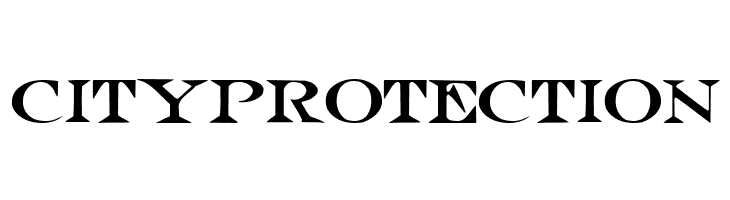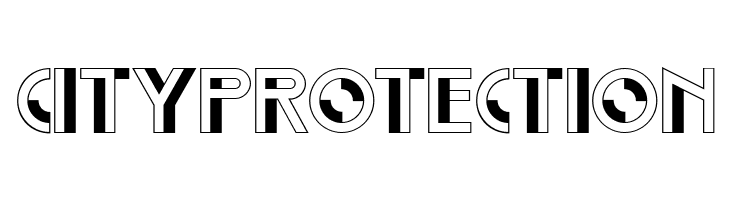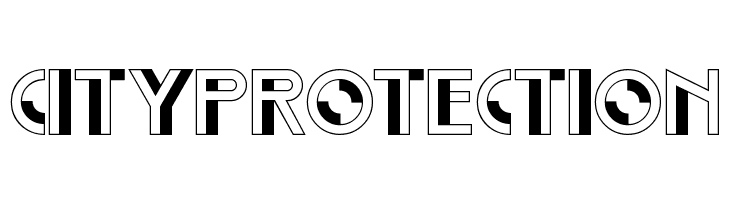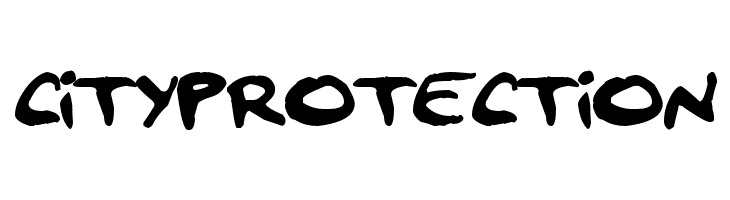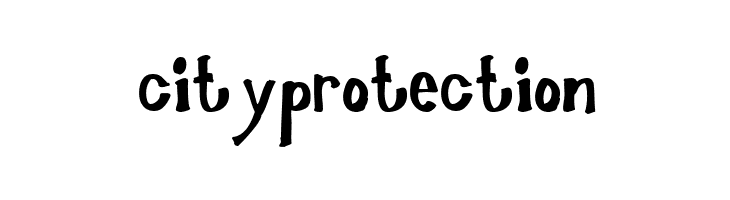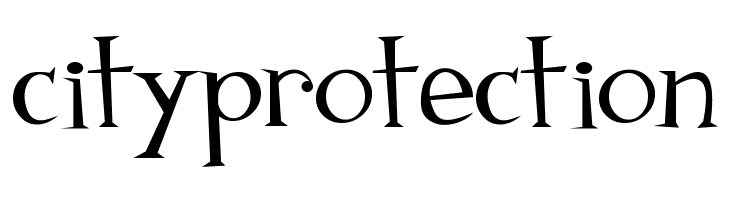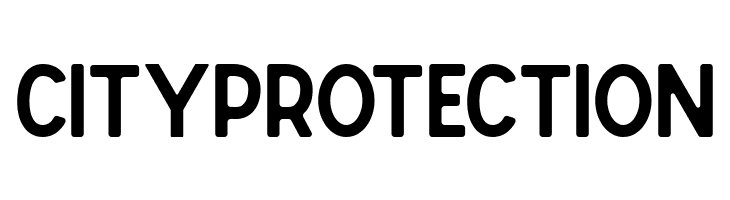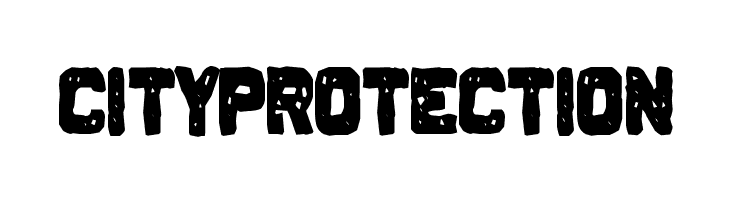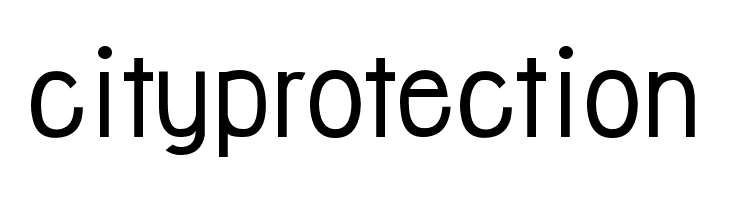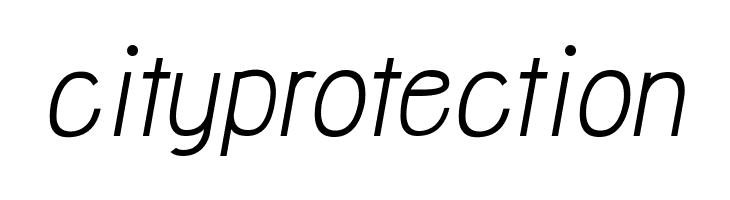
A bold, hand-drawn font with an expressive and dynamic style.
A bold, hand-drawn font with dynamic, expressive characters.
A casual handwritten font with dynamic strokes and a personal touch.
A bold, distressed font with a rugged, edgy appearance.
A bold, modern font with clean, geometric lines and slightly rounded characters.
A whimsical and playful serif font with dynamic strokes and unique characters.
A playful, hand-drawn font with bold, irregular characters.
Cartoonish, prank-themed illustrative font with each character as a unique comic drawing.
A playful, bold font with dotted patterns and thick outlines, ideal for fun projects.
A bold, modern sans-serif font with excellent readability and versatility.
A bold, italic font with a modern and elegant slant.
A sleek, modern italic font with smooth, slanted letterforms and rounded edges.
A bold, angular serif font with a distinctive, edgy appearance.
A classic serif font with elegant strokes and pronounced serifs.
A casual, handwritten font with a playful and informal style.
A playful, handwritten font with thin, elongated characters and whimsical curves.
A modern, fragmented font with bold, circular designs.
A bold, playful font with a cartoonish, dynamic style.
A playful, bold font with characters enclosed in solid circles, offering a whimsical and eye-catching style.
A bold, playful font with a cartoon-like, blocky design.
A casual, handwritten font with a playful and spontaneous style.
A dynamic and playful script font with fluid, cursive letterforms.
A bold, geometric font with a mix of solid and outlined elements, ideal for decorative use.
A bold, geometric font with strong outlines and unique negative space.